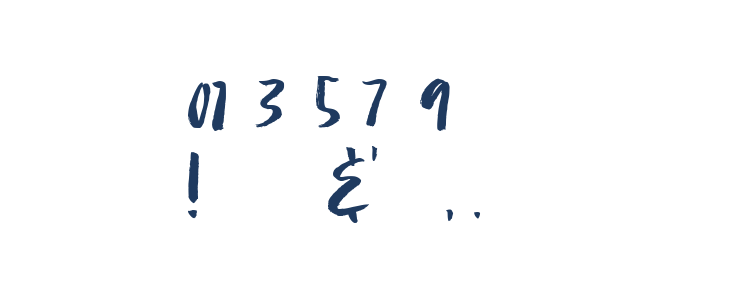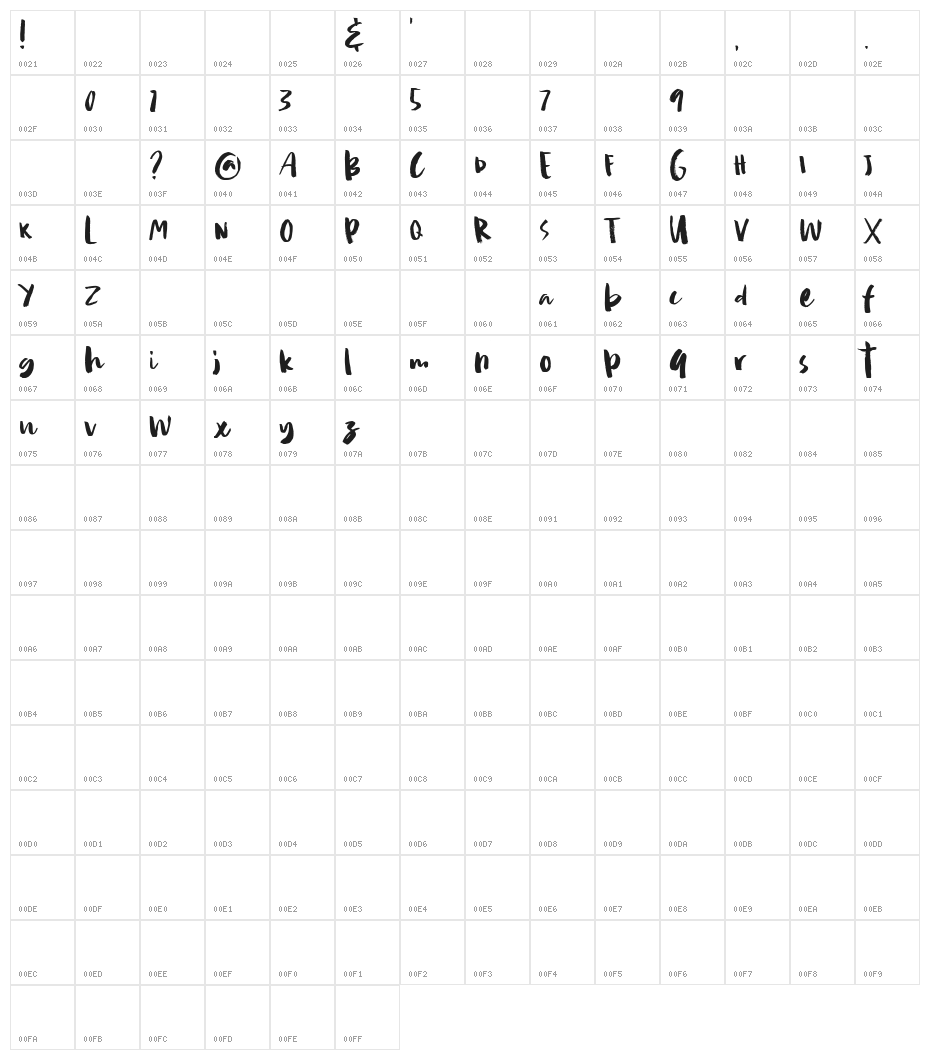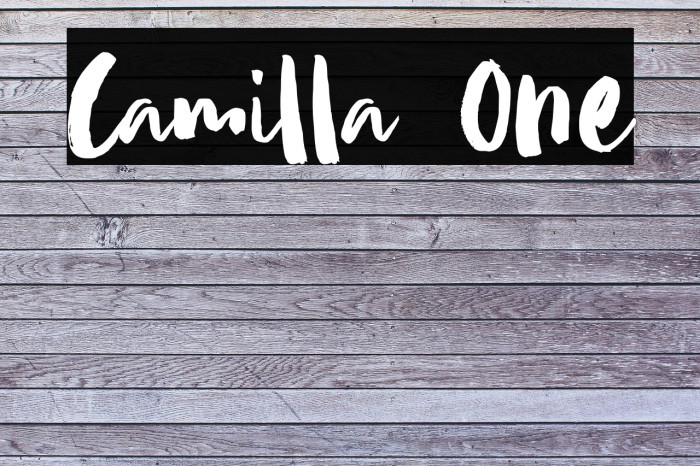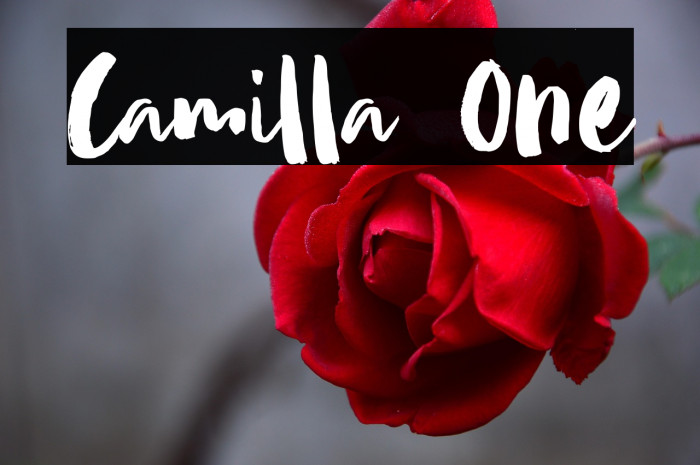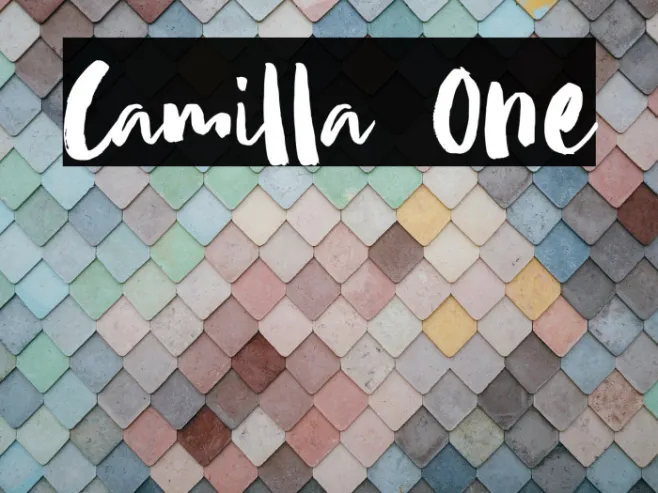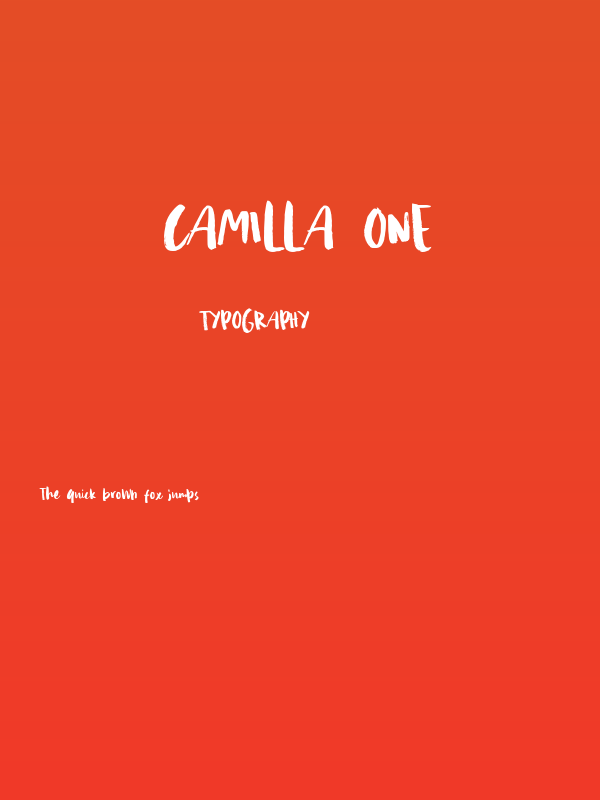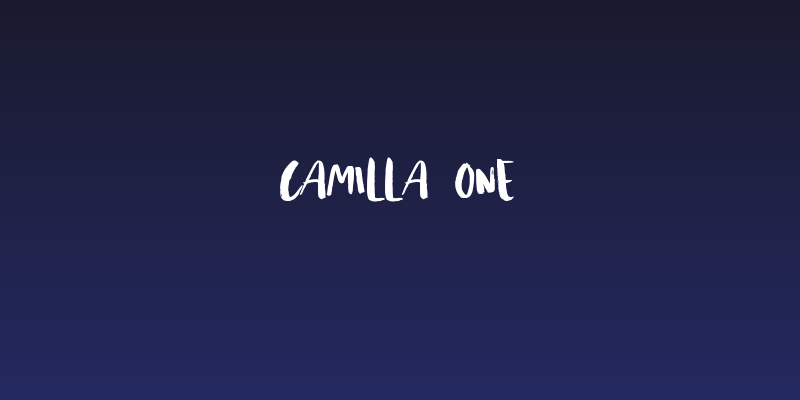
Camilla One Font
Camilla One Description
This font features a bold and expressive handwritten style, characterized by its thick, brush-like strokes and dynamic, irregular forms. The uppercase letters are particularly striking, with a sense of movement and energy that suggests a hand-drawn aesthetic. The lowercase letters maintain this energetic style, with some characters featuring unique flourishes that add to the overall artistic feel. Numbers and special characters are consistent with the bold, brush-like appearance, making them stand out. The font's overall style is both modern and artistic, suitable for projects that require a personal, creative touch.